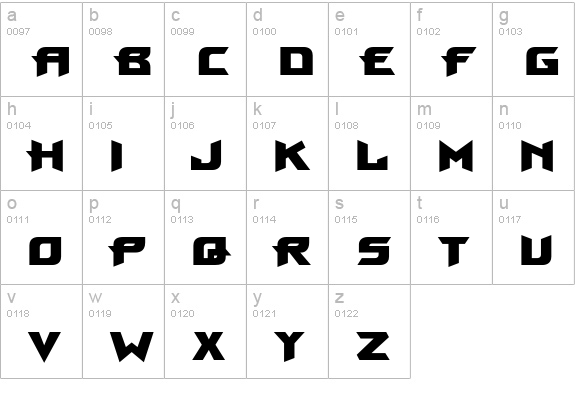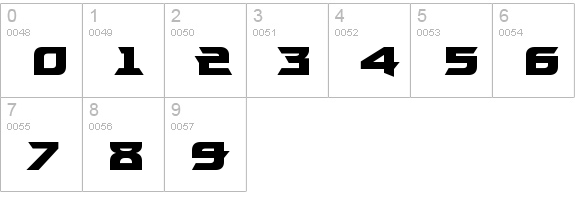
PT ProunB Bold Cyrillic Font Details
PT ProunB Bold Cyrillic is a strong, high-contrast variant in the PT typeface family \xE2\x80\x94 well suited to headlines, attention-grabbing titles, and strong calls-to-action.
PT ProunB Bold Cyrillic font is a striking and modern typeface that exudes confidence and sophistication. With its bold and dynamic letterforms, this font is perfect for creating eye-catching headlines, posters, and branding materials. The Cyrillic characters in this font add a touch of elegance and uniqueness to any design. What's even better is that PT ProunB Bold Cyrillic font is completely free to download at FontsMarket.com. Whether you're a designer looking to spice up your projects or just someone who appreciates beautiful typography, this font is a must-have addition to your collection. Don't miss out on the opportunity to elevate your designs with this stylish and versatile typeface. Download PT ProunB Bold Cyrillic font today and unleash your creativity!